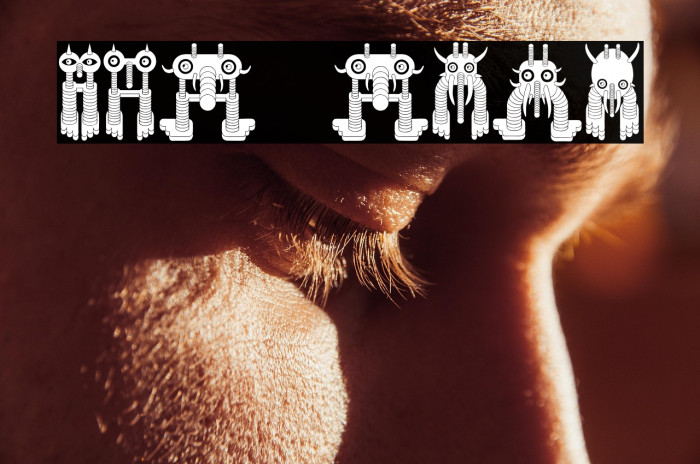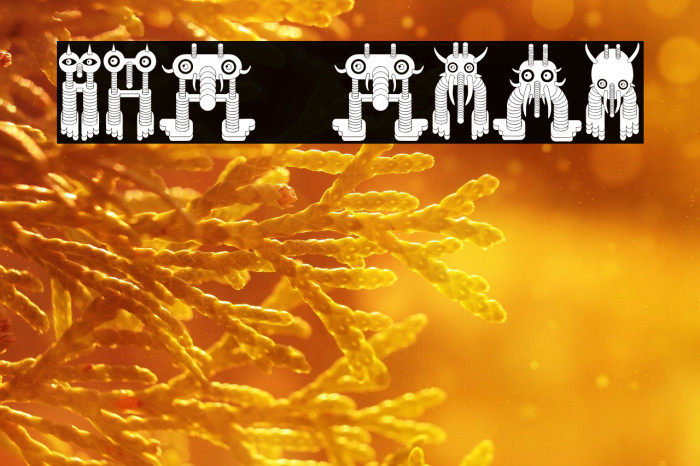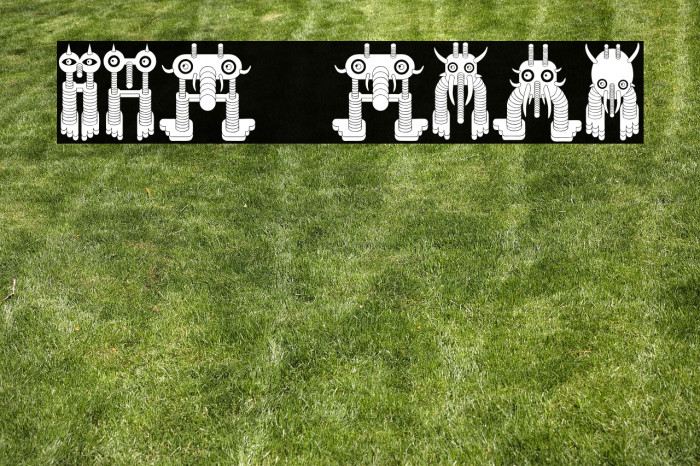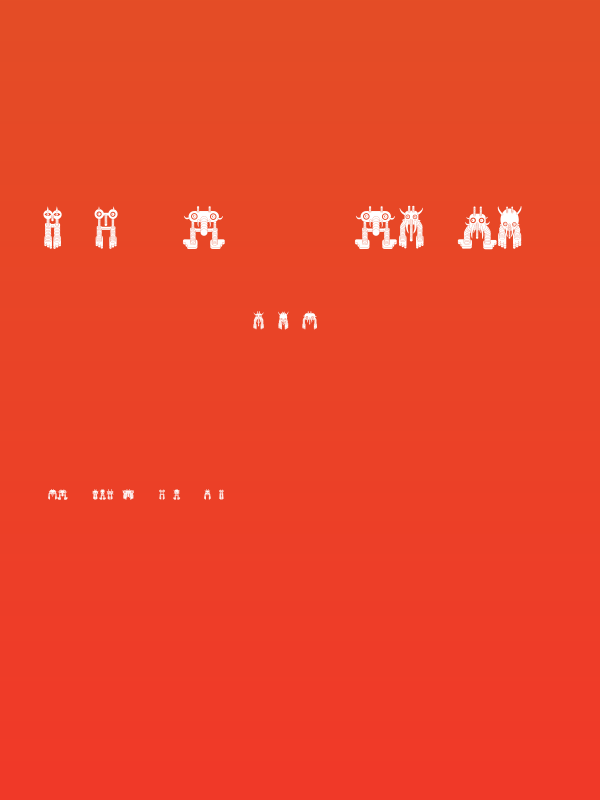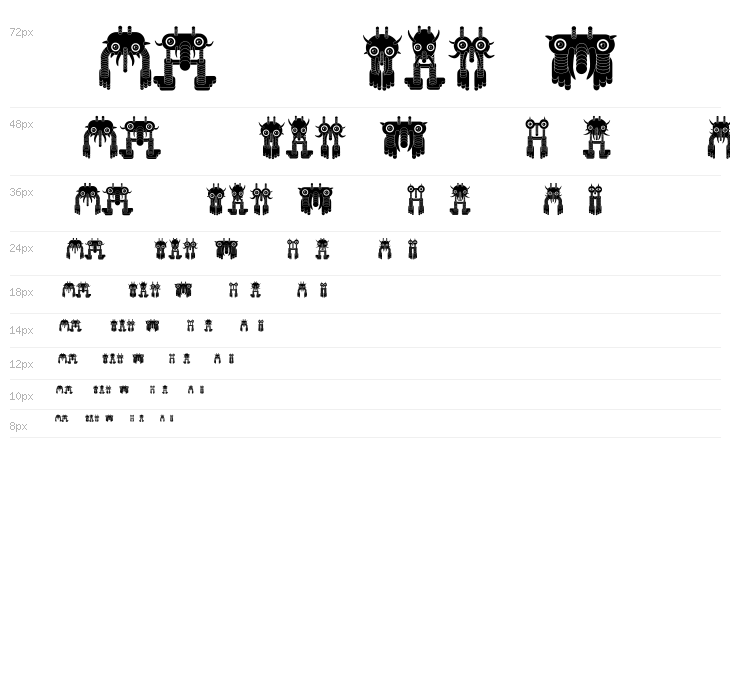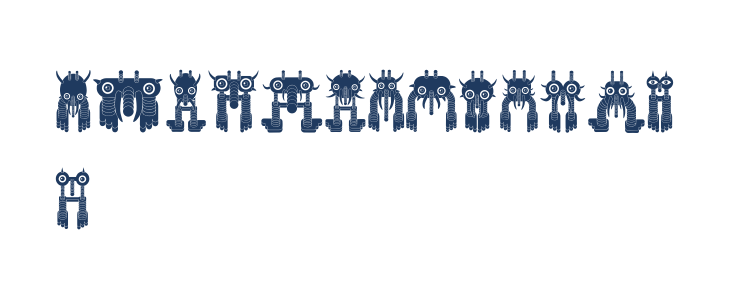
Monstero Regular Font
Monstero Regular Description
This font features a highly decorative and playful design, with each character resembling a unique monster-like figure. The characters are composed of intricate details, including eyes, limbs, and various textures, giving them a whimsical and imaginative appearance. The font is bold and visually striking, making it ideal for creative projects that require a touch of fantasy and fun. Its unique style is sure to capture attention and add a distinctive flair to any design.
| Proposed Projects | Ideal for children's books, playful posters, Halloween-themed designs, and creative branding projects. |